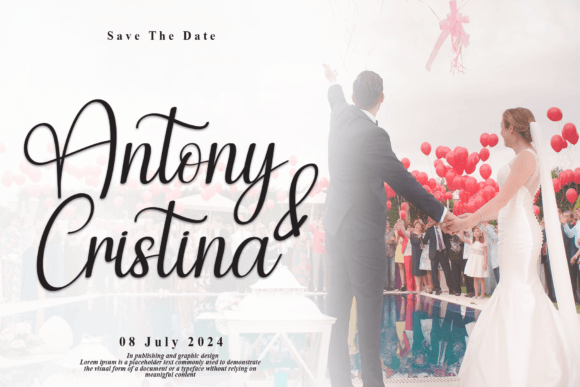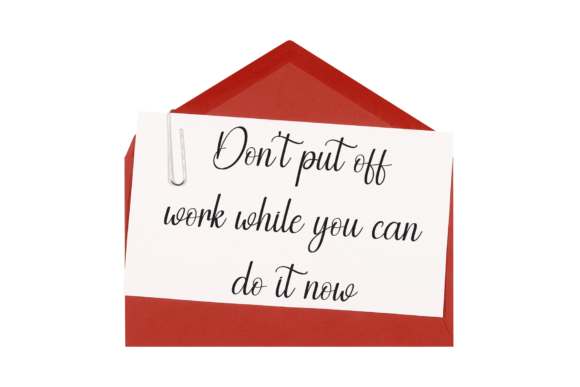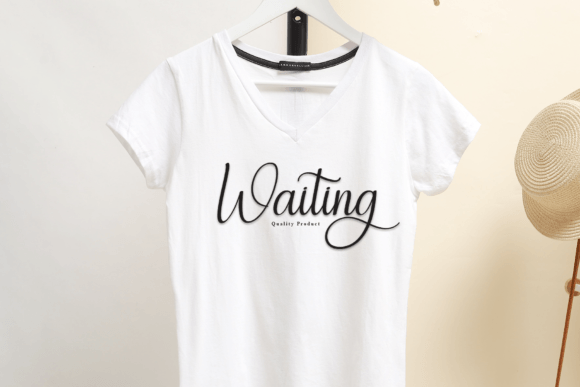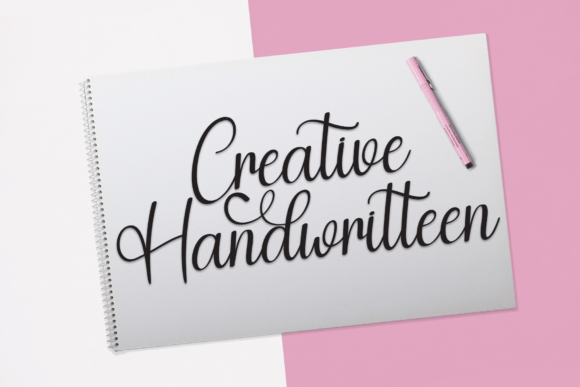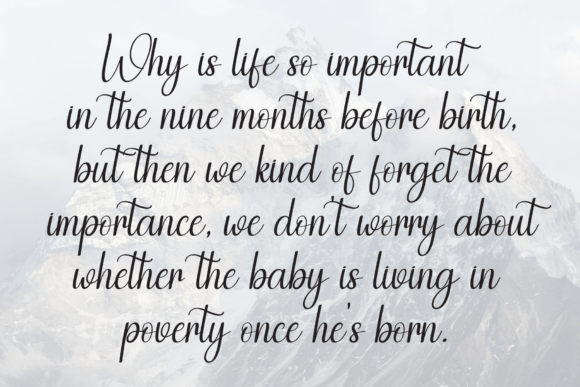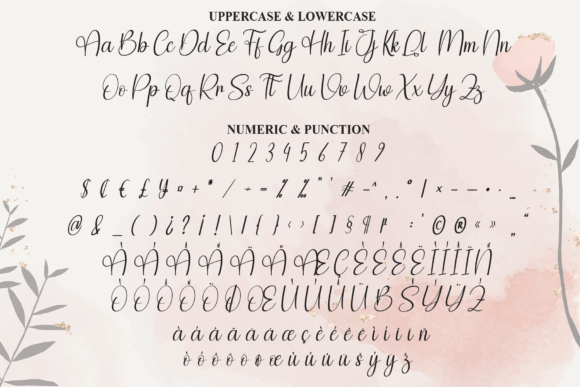
The Blushing Sunday Font: A Warm and Inviting Addition to Your Designs
I’ll never forget the time I was working on a project for a client’s wedding invitation. I had the perfect design concept, but I was struggling to find a font that captured the warm and personal feel I was going for. That’s when I stumbled upon the Blushing Sunday font. It was like a breath of fresh air – its smooth and flowing letters immediately added a friendly and inviting touch to my design. In this article, I’ll share with you why I fell in love with this font, its features, and how to make the most of it in your designs.
A Personal Review: What I Love About Blushing Sunday
Here’s what I love about the Blushing Sunday font:
• ✨ Warm and inviting feel: The font’s smooth and flowing letters create a friendly and approachable vibe, perfect for designs that need a personal touch.
• ✅ Highly legible: Despite its handwritten nature, Blushing Sunday is surprisingly easy to read, making it suitable for body text and headings.
• 💕 Emotional connection: The font’s unique character and charm help create an emotional connection with your audience, making it perfect for designs that require a personal touch.
While Blushing Sunday is an amazing font, there are a few things to keep in mind:
• 🤔 Limited use in formal designs: Due to its handwritten nature, Blushing Sunday might not be the best fit for formal designs, such as business proposals or corporate branding.
• ⚠️ Glyph limitations: While the font has a range of glyphs and alternates, it might not have every special character or symbol you need.
The Story Behind Blushing Sunday
Blushing Sunday was designed with the intention of creating a warm and inviting font that captures the essence of handmade designs. The font’s creator drew inspiration from traditional handwritten scripts and infused it with a modern twist. The result is a unique and charming font that’s perfect for designs that require a personal touch.
What is Blushing Sunday best used for? Blushing Sunday is perfect for designs that require a warm and personal touch, such as greeting cards, invitations, and social media graphics.
Is Blushing Sunday suitable for body text? While Blushing Sunday is highly legible, it’s best used for headings and titles. For body text, consider using a more traditional font.
Does Blushing Sunday have any special features? Yes, Blushing Sunday has a range of glyphs and stylistic alternates that can be accessed through OpenType features.